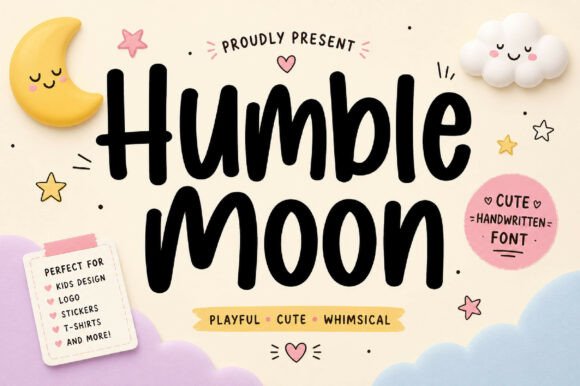
Humble Moon: A Bold Handwritten Display Font
In the crowded digital landscape, a single scroll can determine whether your message resonates or gets lost in the noise. As marketers and content creators, we constantly search for design assets that stop the thumb and capture attention instantly. Humble Moon emerges as a powerful solution for those seeking to inject personality into their campaigns without sacrificing clarity. This striking bold handwritten display font offers a delightful blend of modern appeal and a friendly aura, making it an essential tool for building memorable brand identities across social media, advertising, and web design.
Crafting Scroll-Stopping Visuals with Personality
The effectiveness of any marketing campaign often hinges on its visual hierarchy. While clean sans serif fonts are excellent for body copy, they sometimes lack the emotional hook needed for headlines. Humble Moon fills this gap perfectly. Its smooth and playful strokes create a dramatic statement that feels both human and professional. When you apply this script font to a YouTube thumbnail or an Instagram reel cover, it immediately signals approachability and creativity.
Unlike rigid typefaces, Humble Moon brings a dynamic energy to static images. Imagine a product launch banner where the headline flows naturally, mimicking the excitement of a personal recommendation. This handwritten style breaks the monotony of corporate templates, allowing brands to connect with their audience on a more personal level. For small business owners and influencers, this font serves as a digital signature, reinforcing the idea that there is a real person behind the brand.
Strategic Applications in Digital Campaigns
Integrating Humble Moon into your workflow requires understanding where its strengths shine brightest. It is not designed for long paragraphs but excels in short, impactful text. Here are specific scenarios where this premium font elevates marketing communication:
- Social Media Graphics: Use Humble Moon for key phrases in Instagram posts or Pinterest pins. The bold weight ensures readability even when overlaid on complex imagery, while the script style adds a touch of elegance.
- Email Headers: Replace standard block letters with this creative font in newsletter subject lines or header banners to increase open rates and engagement.
- Webinar and Event Banners: Create a sense of urgency and exclusivity for event promotions. The fluid strokes suggest movement and action, perfect for "Register Now" or "Limited Seats" callouts.
- Product Teasers: For fashion, beauty, or lifestyle brands, use Humble Moon to highlight new arrivals. The font's friendly aura aligns well with products that emphasize self-care and individuality.
- Inspirational Content: Quote graphics perform exceptionally well with this typeface. The handwritten feel makes the words seem more authentic and heartfelt.
Enhancing Readability Across Devices
A common concern with script fonts is legibility, especially on mobile screens where users consume most of their content. However, Humble Moon is engineered with modern typography principles in mind. Its thick, confident strokes prevent the letters from disappearing on smaller displays or low-resolution thumbnails. When designing for fast-scrolling feeds, the contrast between the bold characters and the background becomes crucial. By maintaining adequate spacing and choosing high-contrast color combinations, you ensure that the message lands clearly within milliseconds.
Furthermore, the font's distinct character shapes aid in quick recognition. In a sea of generic sans serif headers, the unique loops and curves of Humble Moon act as visual anchors. This helps in establishing a strong visual hierarchy, guiding the viewer's eye directly to the most important information. Whether it is a sale announcement on a landing page or a promotional graphic on TikTok, the font maintains its integrity without becoming cluttered or difficult to read.
Mastering Font Pairing for Editorial Impact
To maximize the impact of Humble Moon, strategic font pairing is essential. Because this display font carries so much personality, it works best when paired with a neutral counterpart that lets it shine. Combining Humble Moon with a clean sans serif font for captions and body text creates a balanced, professional look. This combination is ideal for blog posts, website banners, and ad creatives where you need to convey detailed information alongside a catchy headline.
For a more sophisticated, editorial design aesthetic, consider pairing it with a classic serif font. This juxtaposition of modern handwriting and traditional print styles adds depth to your brand identity. It suggests a brand that values both tradition and innovation. Whether you are designing packaging, creating a logo mark, or developing a comprehensive brand kit, these pairings ensure consistency and visual harmony across all touchpoints.
Building Brand Recognition Through Consistency
Consistency is the cornerstone of brand recognition. Using a distinctive typeface like Humble Moon across all your marketing channels helps audiences instantly identify your content. When followers see your reels covers, email headers, and social posts utilizing the same bold handwritten style, it reinforces your brand voice. Over time, this visual consistency builds trust and familiarity, making your brand feel like a trusted friend rather than a faceless corporation.
Ultimately, Humble Moon is more than just a set of characters; it is a strategic asset for modern marketers. By leveraging its bold, friendly, and readable design, you can create visuals that not only look great but also drive engagement and communicate your brand's unique story effectively. In a world dominated by algorithms and automation, the human touch provided by a high-quality handwritten font remains one of the most powerful tools in our creative arsenal.